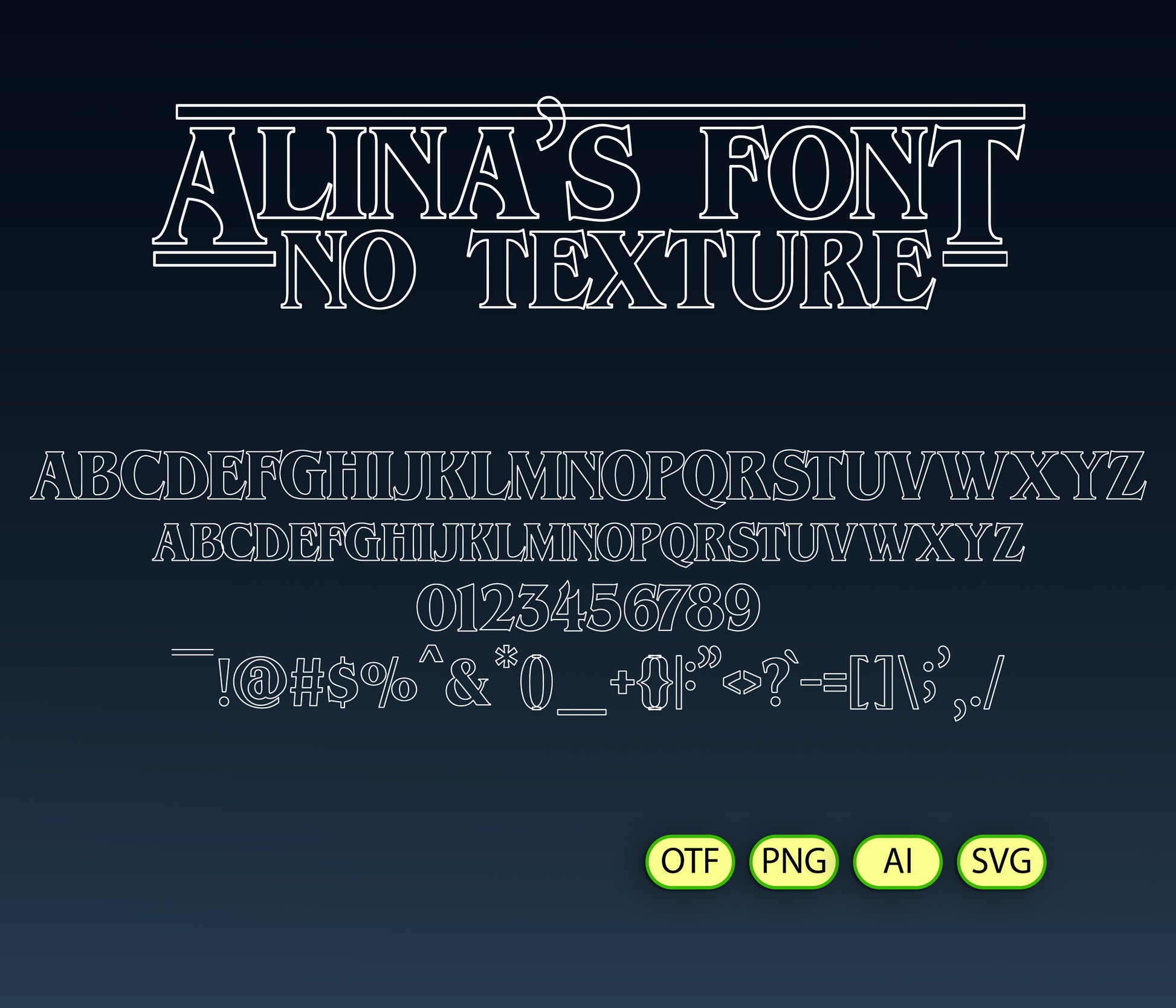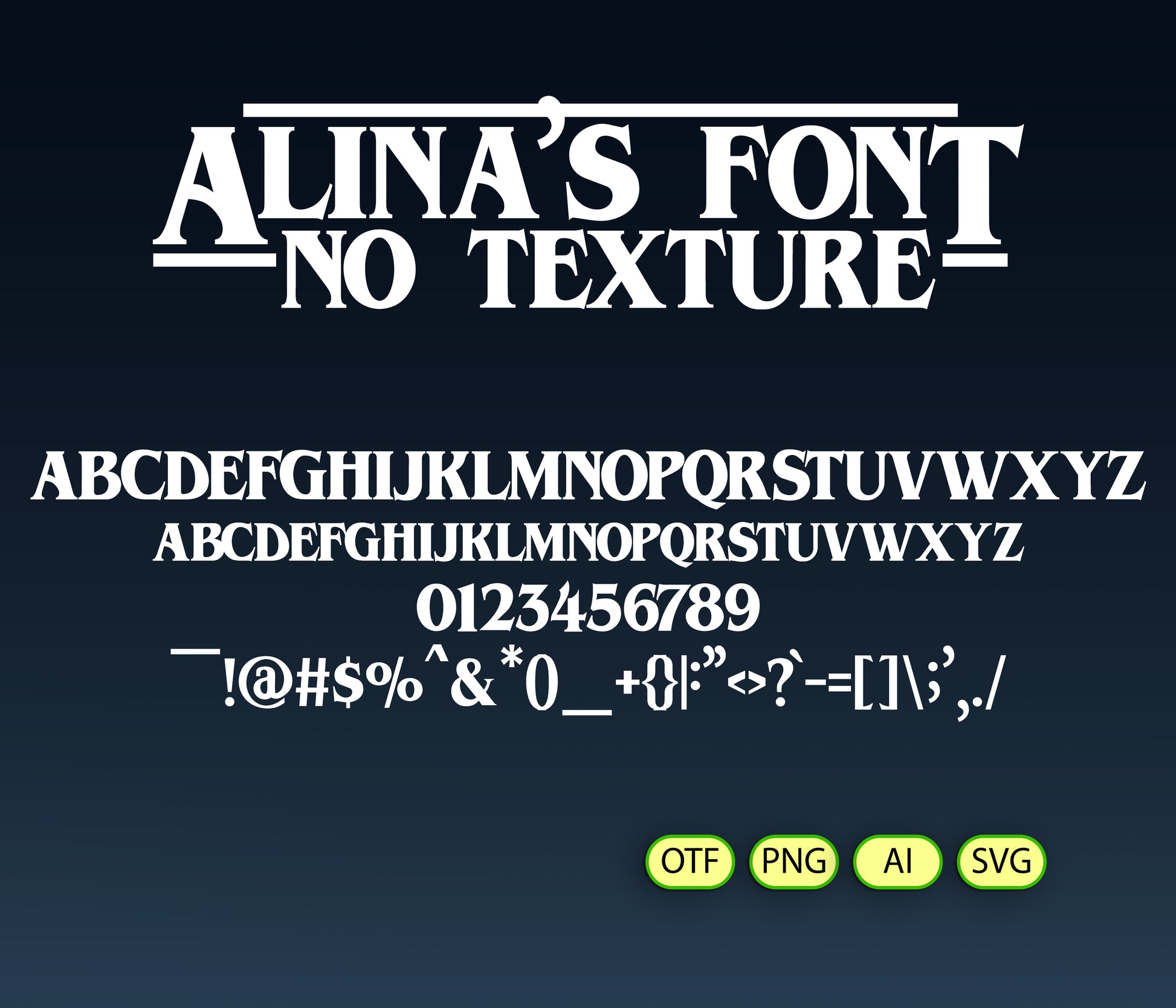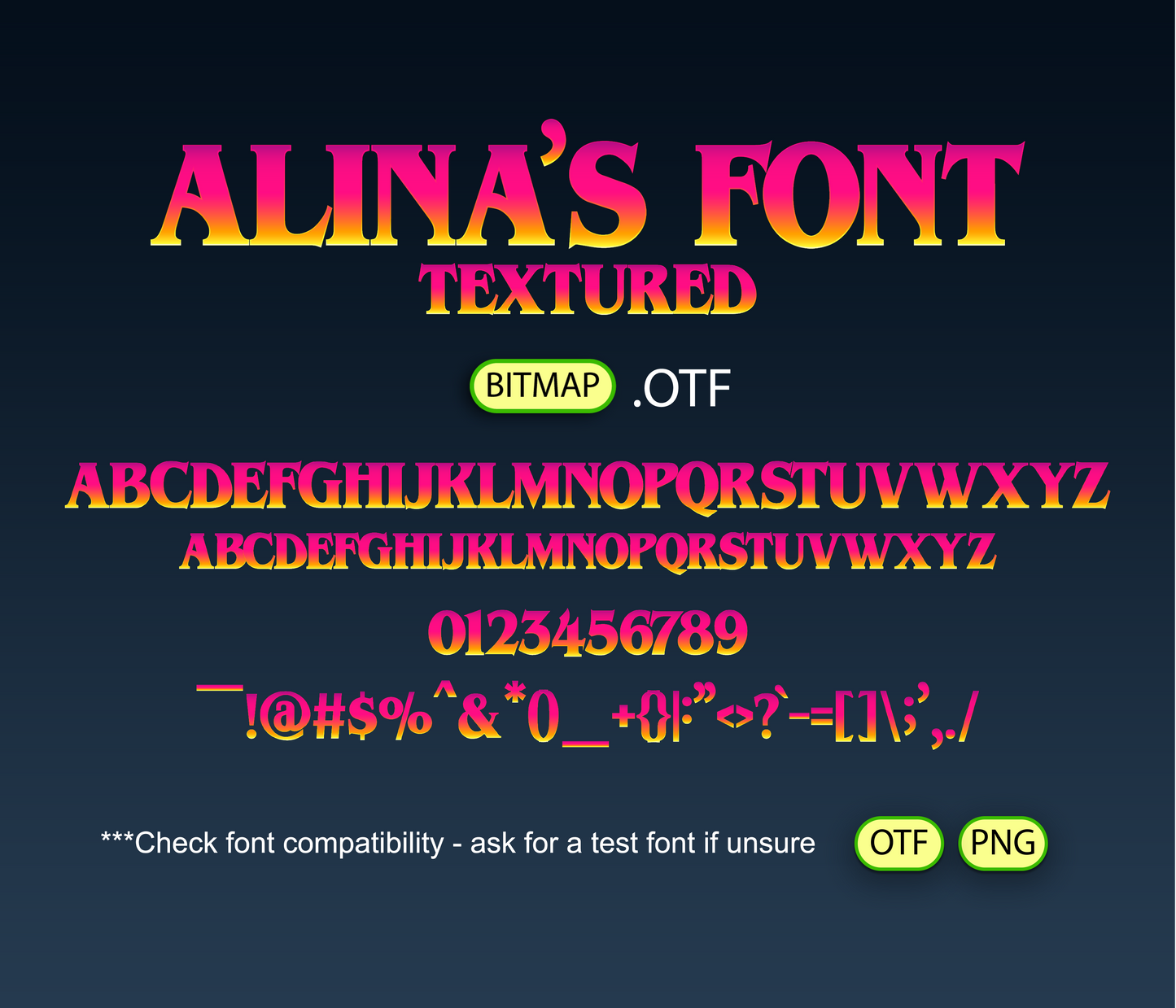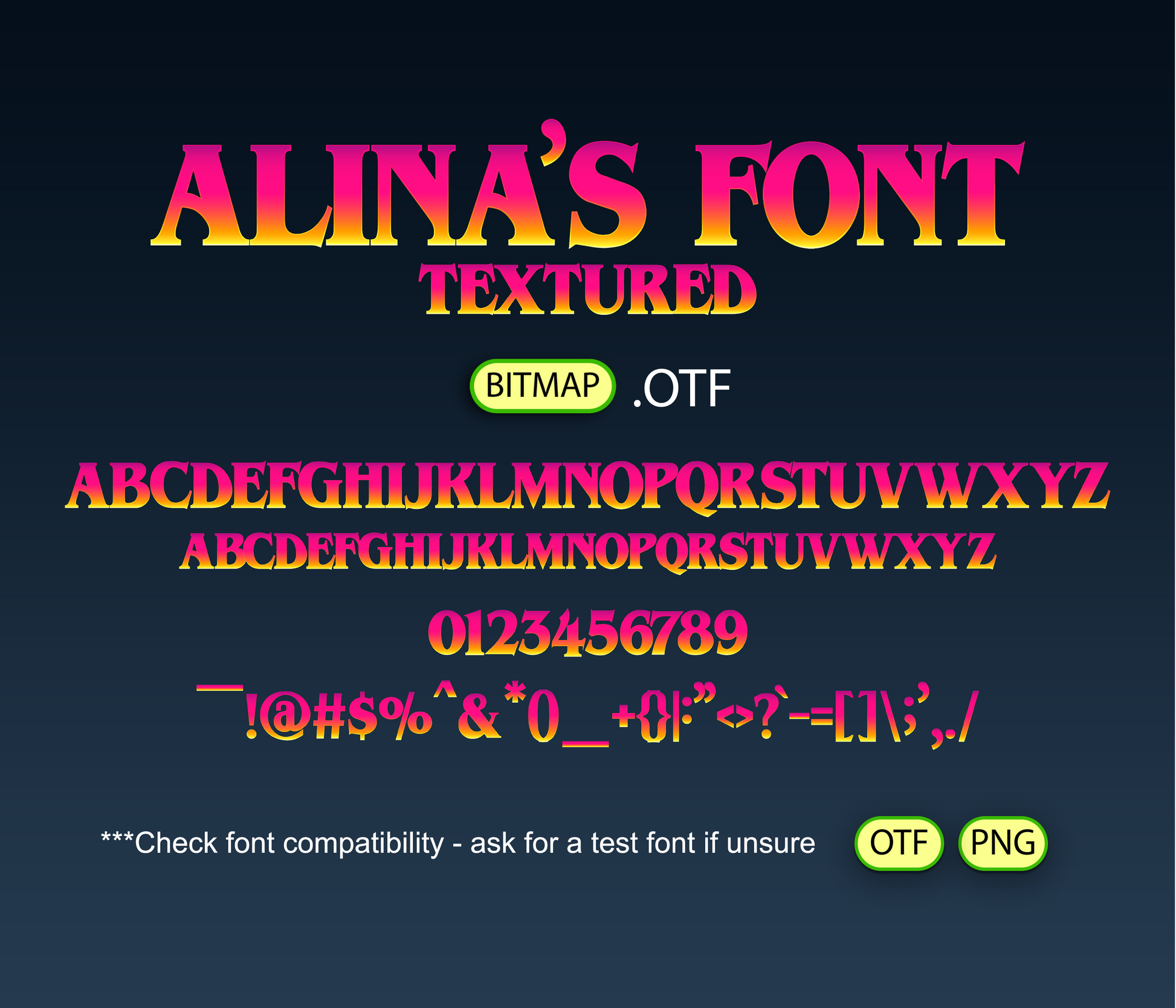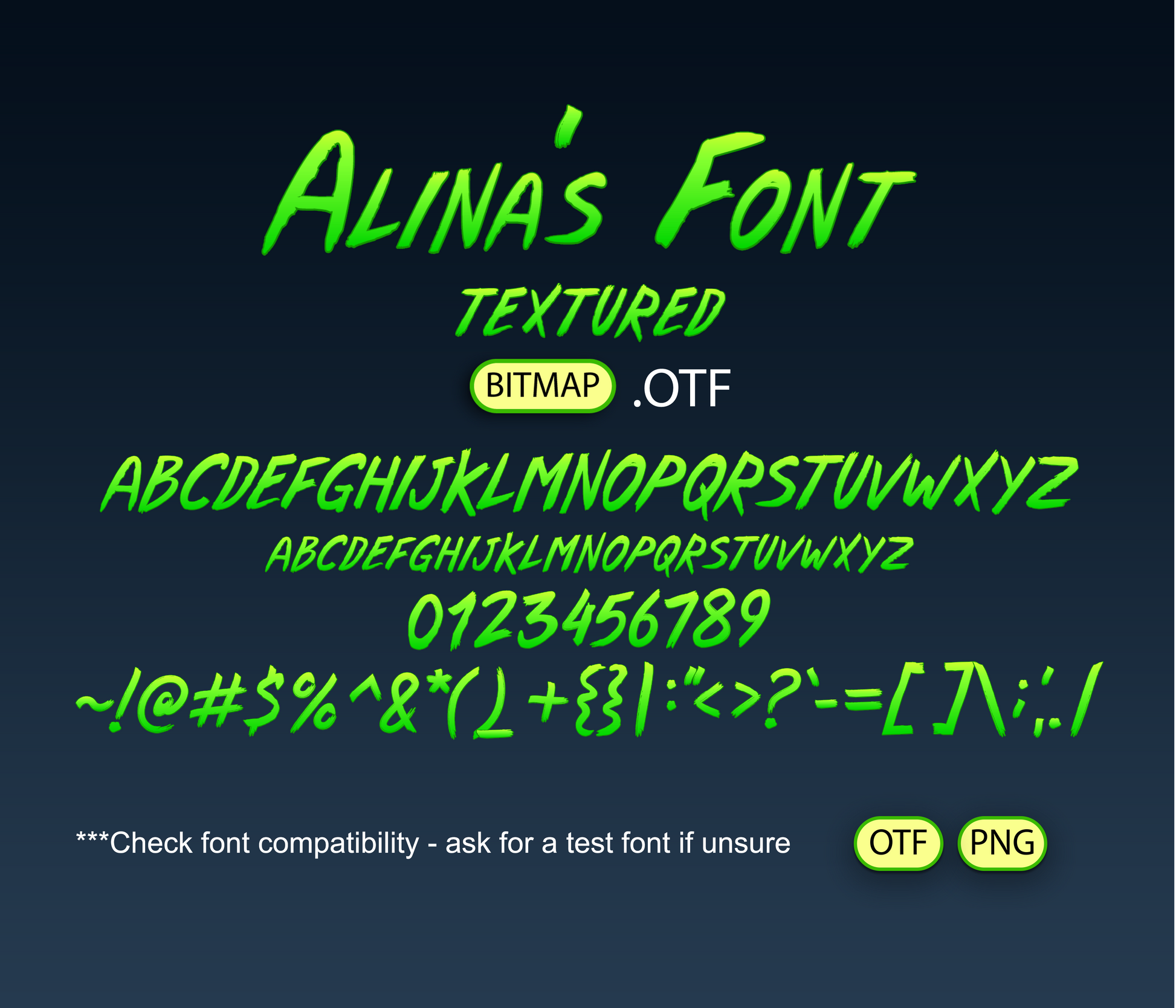
Tales From 85 Font Textured Bundle
Plug into the electrifying pulse of retro supernatural adventure with our Tales From 85 Font Textured, capturing the eerie neon glow of small-town mystery narratives and otherworldly dimension-bending stories wrapped in rich, atmospheric textures straight out of a forgotten decade. Built for retro horror enthusiasts, themed event designers, pop culture creators, and nostalgic visual storytellers, this font channels the haunting synthwave energy of dark 80s supernatural fantasy directly into your most electrifying projects. From spine-tingling party invitations to collector merchandise that glows with vintage dimension horror charm, every letter pulses with the unmistakable electricity of retro supernatural storytelling.
Retro Neon Typography for Horror, Synthwave & Supernatural Entertainment Design
Our Tales From 85 Font Textured delivers striking, atmospheric letterforms drenched in vivid neon-soaked textures and synthwave-inspired visual energy, drawing deep inspiration from the iconic universe of 80s small-town supernatural mystery, interdimensional horror adventure, and the haunting glow of vintage analog aesthetics. Every character radiates the electric chill of a decade where darkness lurked just beyond the flickering streetlight. Ideal for:
- Event Promotions: Design atmosphere-heavy invitations, statement banners, and spine-chilling event posters for retro 80s horror themed parties, synthwave nights, supernatural mystery gatherings, neon costume celebrations, and nostalgic decade tribute events that buzz with the eerie energy of classic otherworldly adventure storytelling
- Merchandise Design: A powerful creative match for bold graphic tees, collector art prints, glowing sticker packs, themed tote bags, and lifestyle accessories that capture the iconic neon-drenched aesthetic of vintage supernatural horror culture and interdimensional mystery fashion
- Digital Media: Electrify your social media channels, fan platforms, horror blogs, and creative portfolios with richly textured neon headers and synthwave-inspired graphic compositions that radiate the haunting electricity of retro 80s supernatural entertainment nostalgia
- Creative Content: Infuse dark retro star power into fan artwork, supernatural character illustrations, dimension-hopping storytelling projects, and themed design collections rooted in the chilling world of small-town mystery horror and otherworldly adventure narratives
- Personal Projects: Weave eerie neon glamour into handmade fan keepsakes, scrapbook collections, DIY room decor, and craft projects lovingly inspired by the haunting visual language of classic 80s supernatural dimension mystery aesthetics
Whether you are building retro horror inspired product lines, crafting atmosphere-drenched event experiences, or giving your personal creative projects the neon supernatural treatment they deserve, this font delivers the bold texture, haunting energy, and timeless synthwave glamour that transforms ordinary designs into electrifying creative statements. Ready to light up the darkness with every letter? Grab this font and let the decade never die.